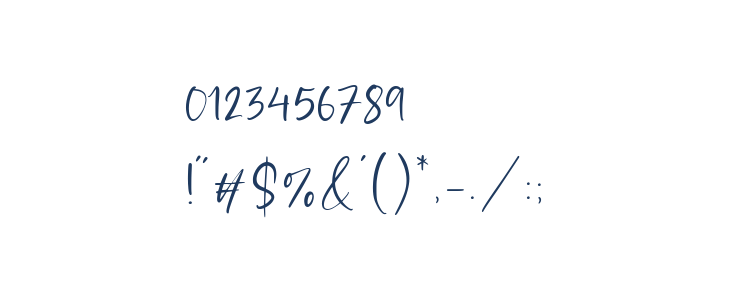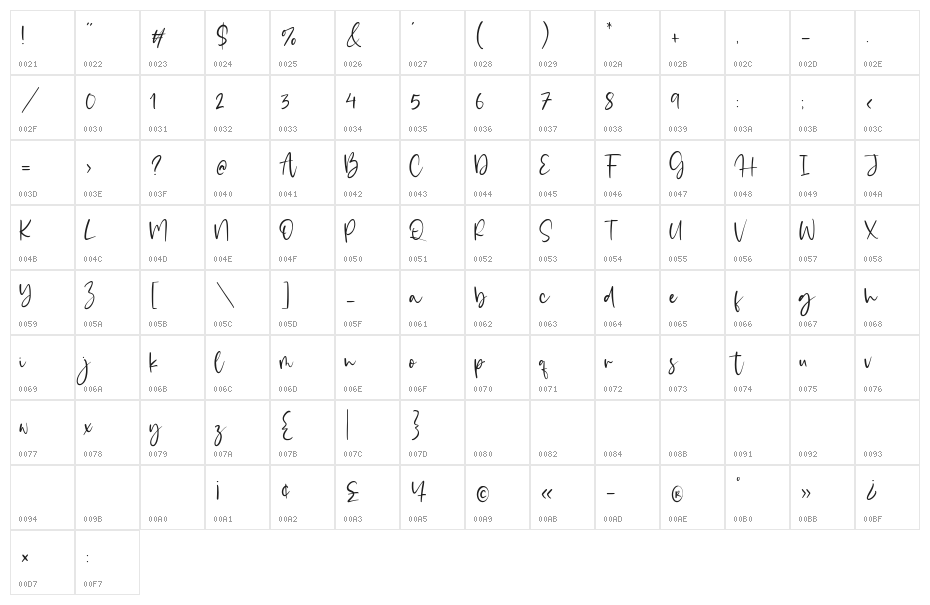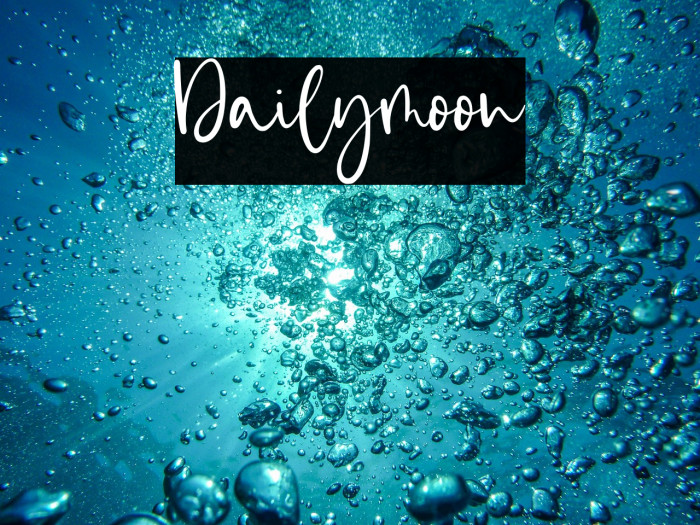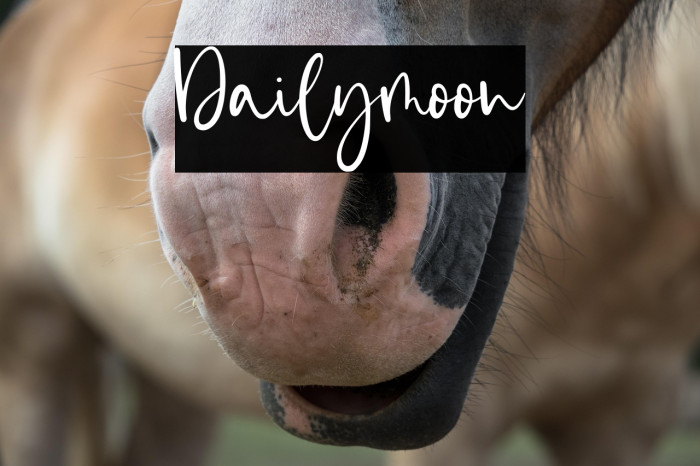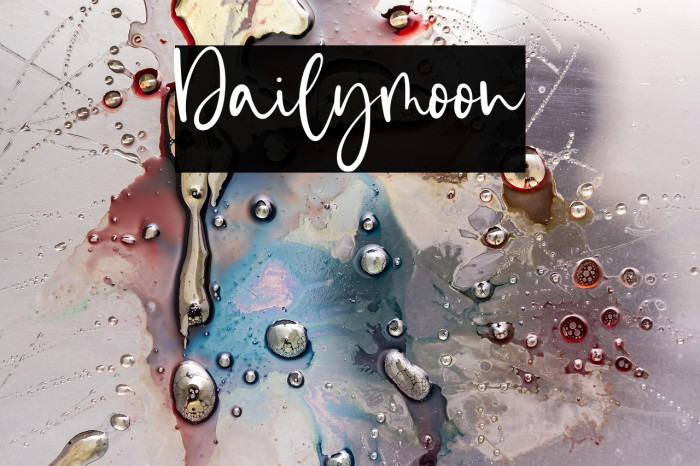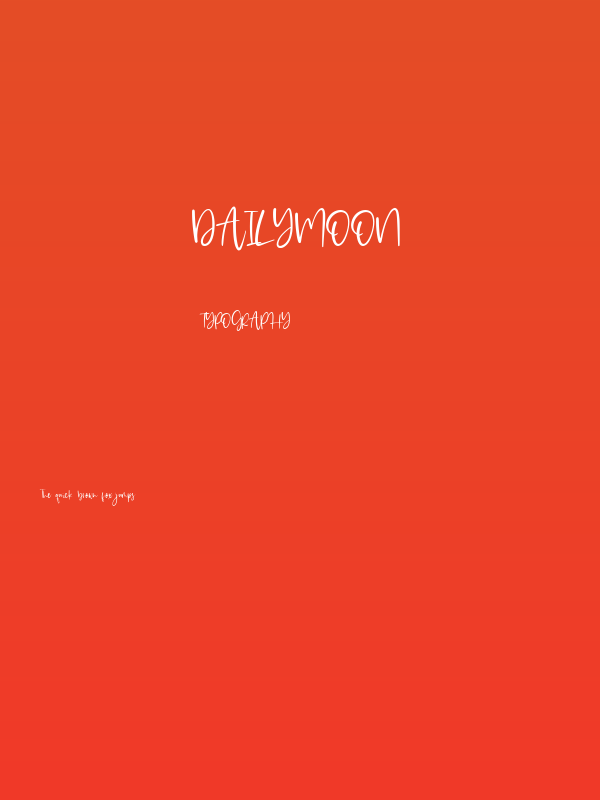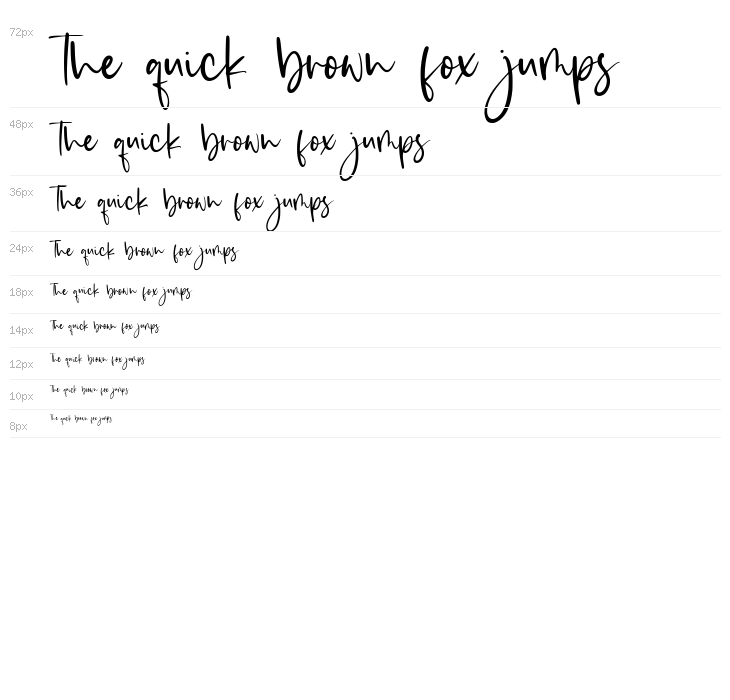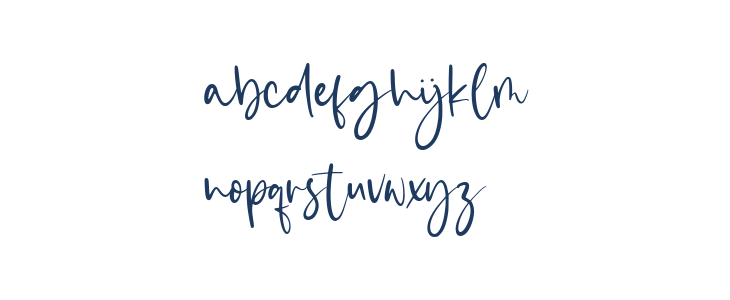
Dailymoon Font
Dailymoon Description
This font features a lively and expressive handwritten style, characterized by its fluid and dynamic strokes. The uppercase letters are bold and slightly slanted, giving a sense of movement and energy. The lowercase letters maintain a consistent flow, with some characters extending below the baseline, adding to its playful nature. The numerals are clear and legible, matching the overall aesthetic of the font. Special characters are creatively designed, maintaining the font's unique style. This font is perfect for projects that require a personal and informal touch.
| Use Case | Logos, Headlines, Invitations |
| Proposed Projects | Ideal for greeting cards, invitations, personal branding, and creative projects. |